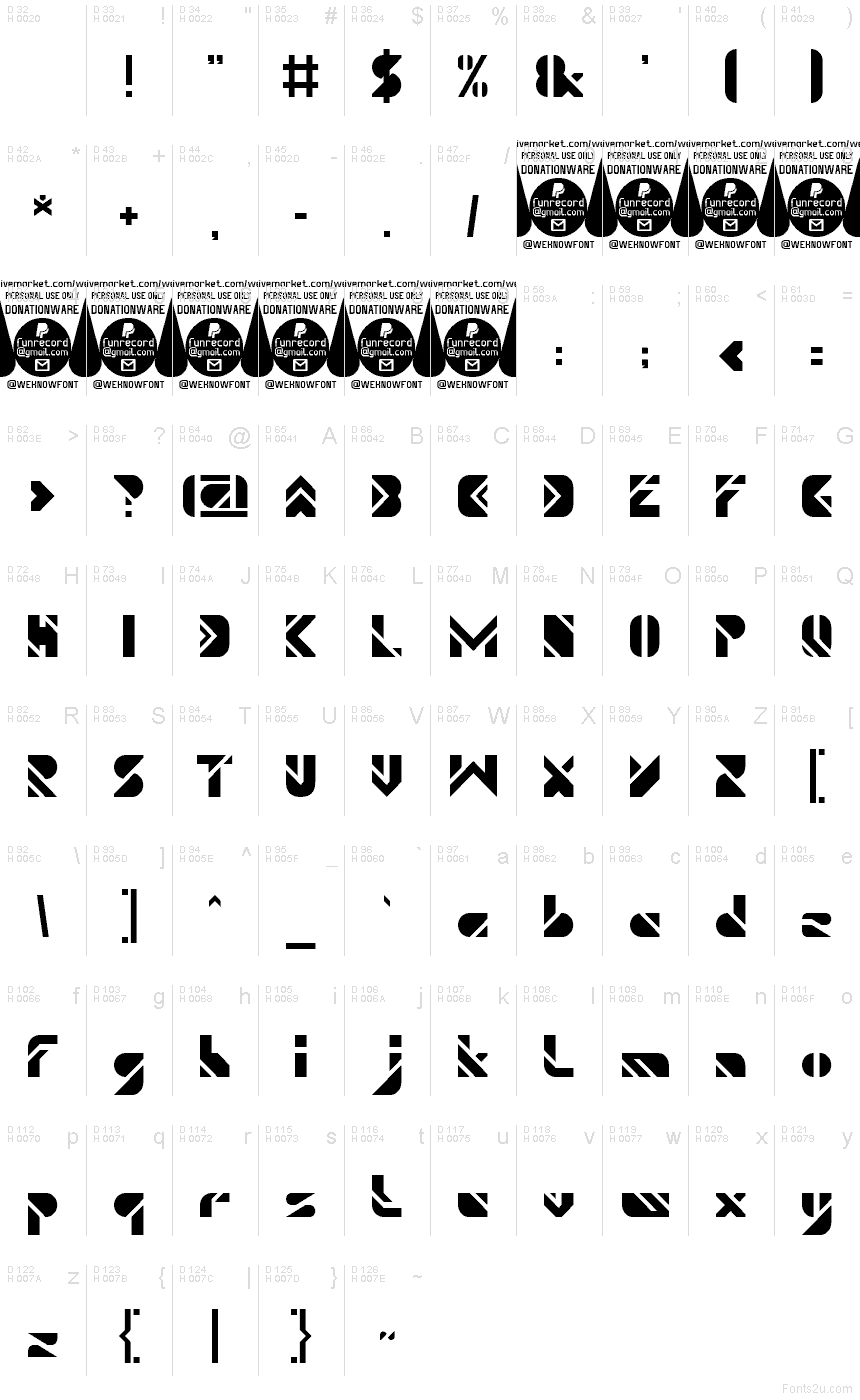
FUTURE SPORT
Future Sport font by weknow is a free bold decorative display font. Built around razor-cut diagonals and stenciled gaps, it slices each letter with high-contrast angles that read fast and feel kinetic. The chunky geometry lands with solid weight while the sharp notches inject motion—like light catching the edges of a graphite helmet.
Using Future Sport, headlines snap to attention on esports logos, team badges, race posters, jersey numbers, sneaker campaigns, and energy-drink packaging. This free font shines when set large with a touch of extra tracking to let the slashes breathe. Pair it with a neutral grotesk or condensed sans for supporting copy to keep the focus on those speed-soaked cuts.